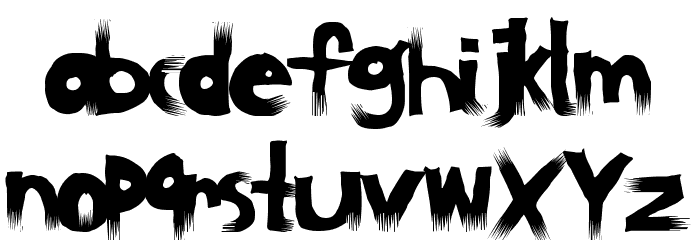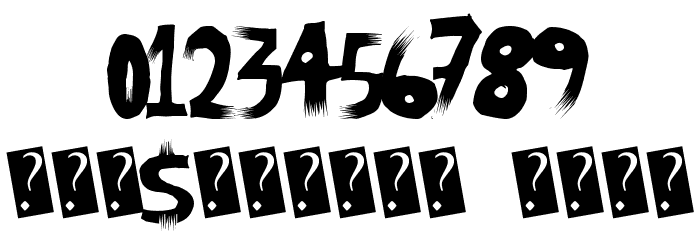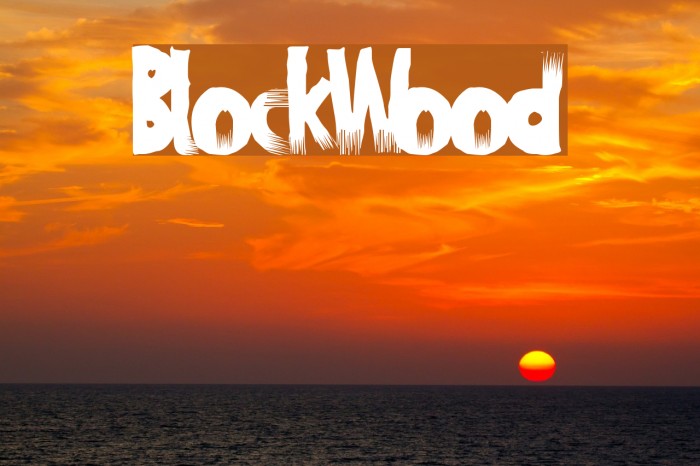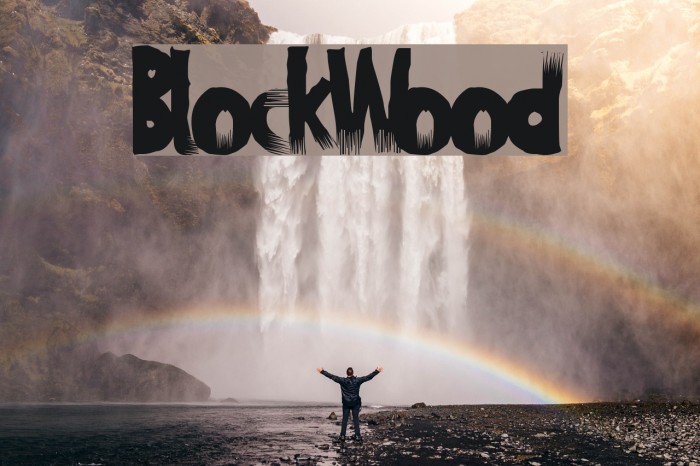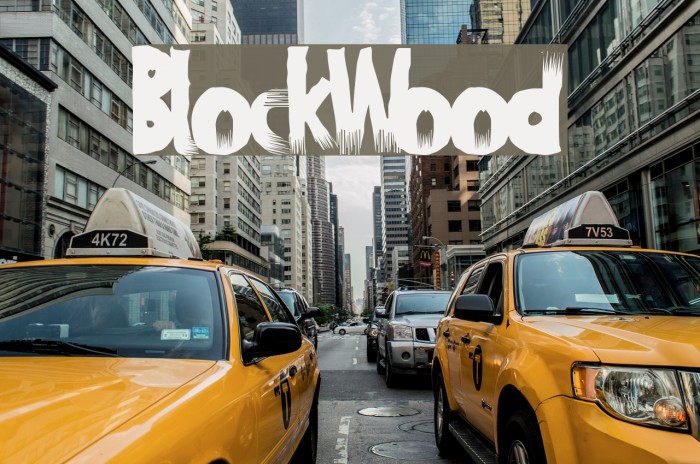
BlockWood Font
This font features a bold and dynamic brushstroke style, reminiscent of hand-painted signage. Each character exhibits a unique, textured appearance, with uneven edges and a sense of movement, as if the letters were painted with a broad brush. The uppercase and lowercase letters maintain a consistent style, with exaggerated curves and angles that add to the font's energetic feel. Numbers and special characters follow the same design principles, ensuring a cohesive look across all elements. The font's distinctive style makes it ideal for projects that require a bold, artistic touch.
A bold, brushstroke-style font with dynamic, textured characters.